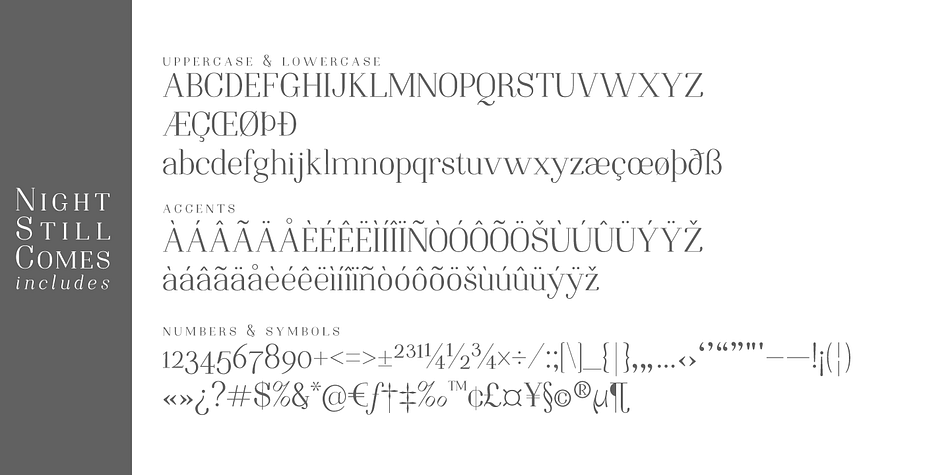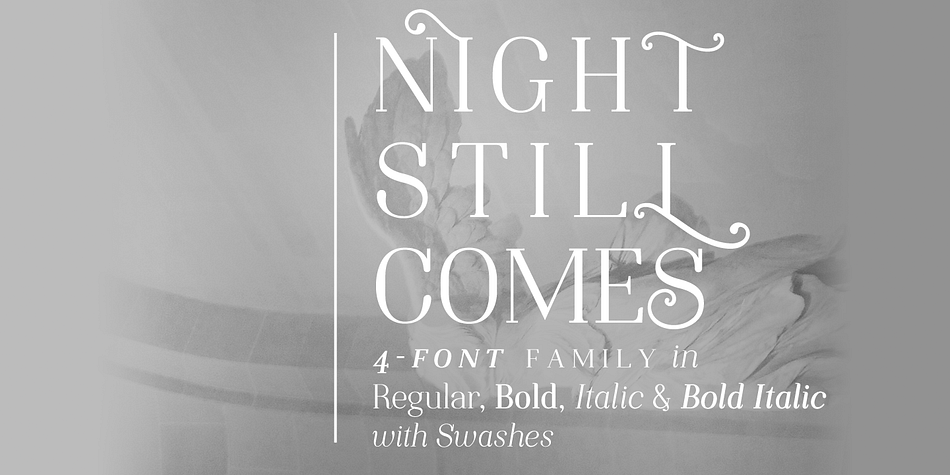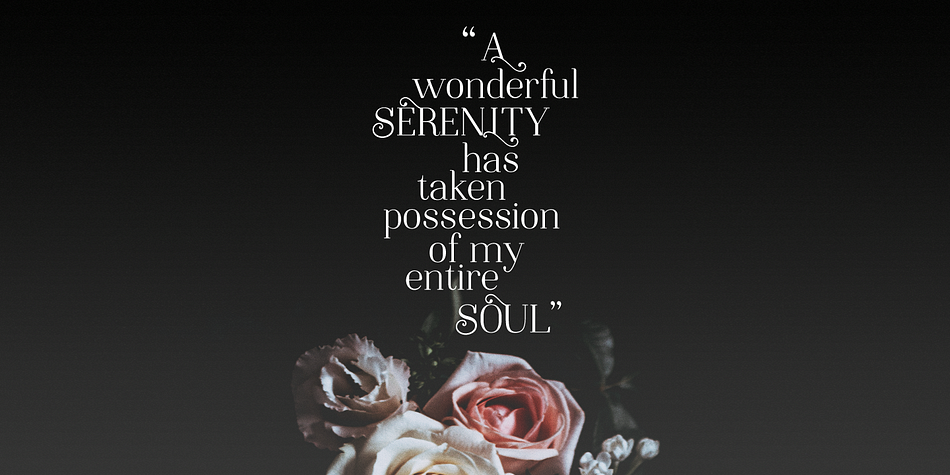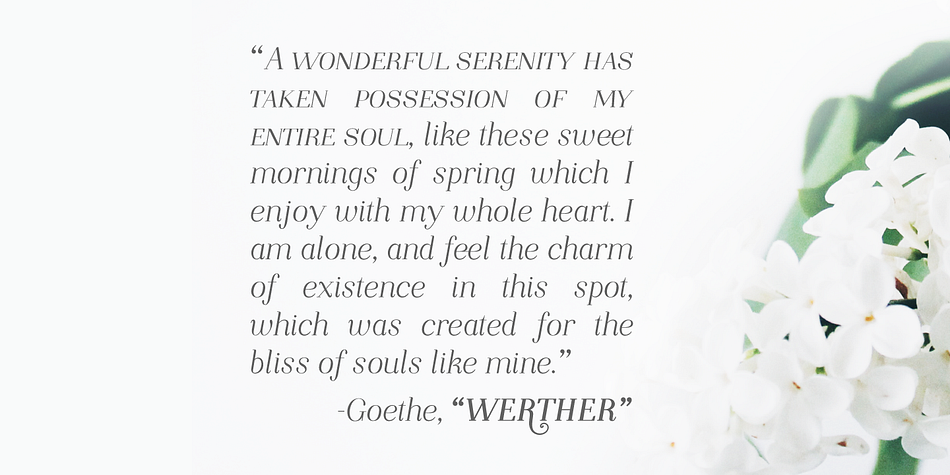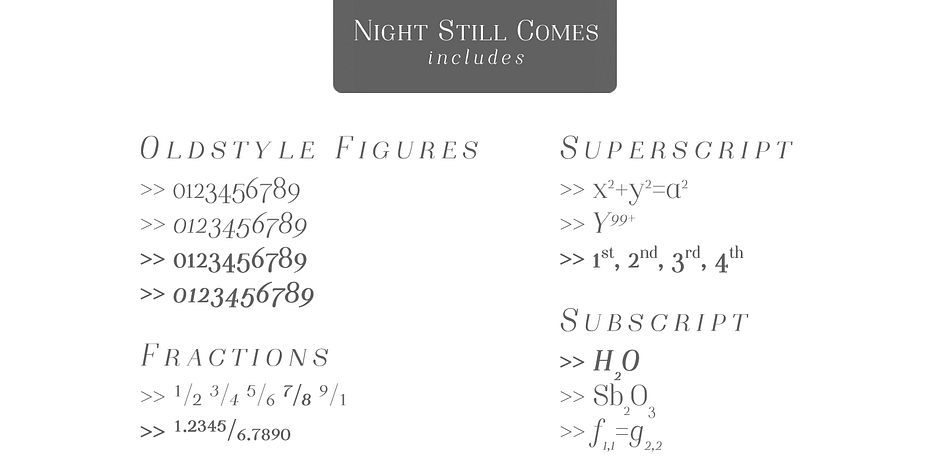
Designed by Ana Parracho, Night Still Comes is a serif and display serif font family. This typeface has eight styles and was published by Ana's Fonts.
Meet Night Still Comes! A serif font in 2 styles: regular and italic, and in 2 weights. With over 550 glyphs for each font, including:
- A-Z | a-z | 0-9 | Punctuation marks | Accents
- Small caps
- Old style & lining numbers
- Superscript & subscript numbers and letters
- Fractions
- Swashes
With classic and elegant lines, Night Still Comes is perfect for branding, magazines, resumes, and social media posts.